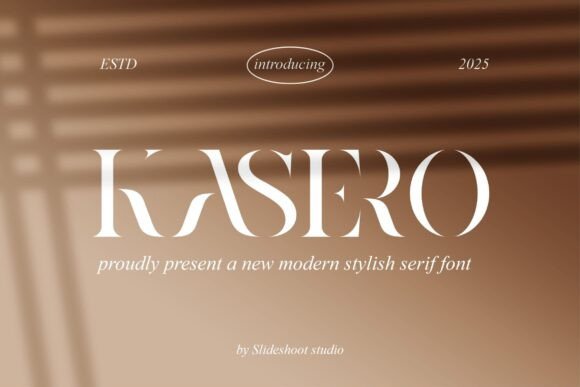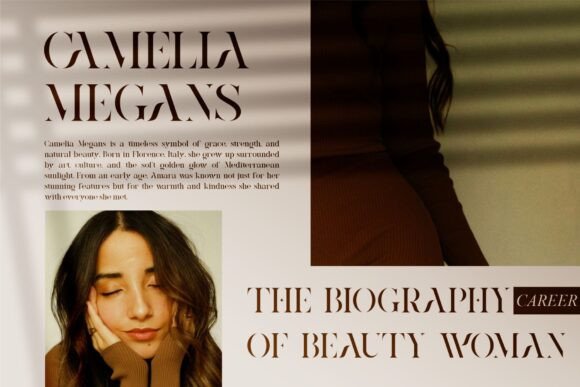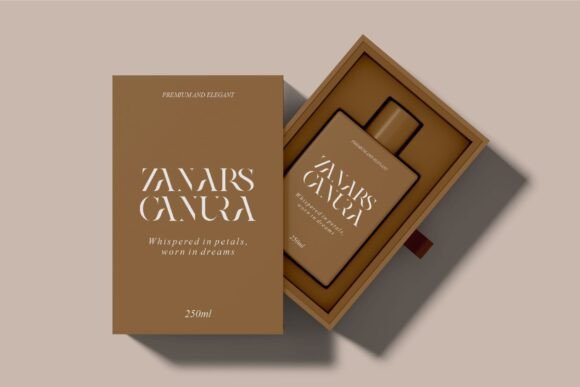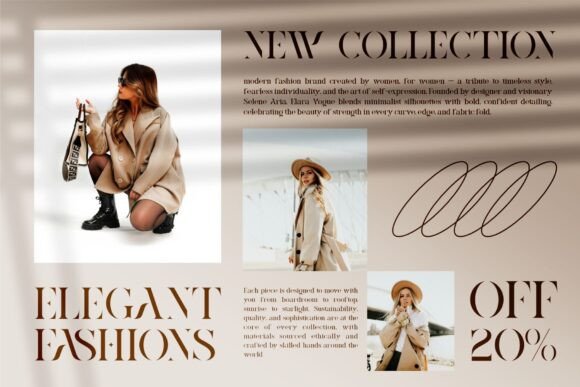
Kasero Font
About the Kasero Font
The wait is over! The incredible Kasero Font is now available for your design toolkit. Kasero Stencil Serif is a modern and classy font type for all branding and logo designs. This modern and classy Serif font has a beautiful character. This font is suitable for invitation card designs, cool logos, movie titles, movie names, business cards, book titles, brand names, and various other designs. Kasero Stencil Serif is a smooth serif font that exudes sophistication and the moment. Its stylish ligatures make this font a perfect partner for any project.
Kasero’s stencil-serif design shines in headlines, short text blocks, and logos where its bold, modern personality makes a strong statement. It’s ideal for branding projects aiming for a sophisticated yet approachable feel, particularly in fashion, lifestyle, or premium product contexts. Avoid using it for body copy or extended text; its strong character isn’t suited to lengthy paragraphs.
Pairing Kasero effectively requires considering its strong presence. A clean sans-serif like Open Sans or Lato provides excellent contrast for body text, while a playful script font such as Great Vibes can add a touch of whimsy for secondary elements in branding. For a more formal feel, a classic serif like Garamond could complement its elegant aspects.
Kasero’s overall mood is confident and stylish, lending itself to projects needing a touch of luxury and modernity without being overly fussy. Its refined details make it suitable for high-end branding materials, but its accessibility prevents it from feeling too exclusive.
Kasero Font Usage Examples
Kasero Font Example